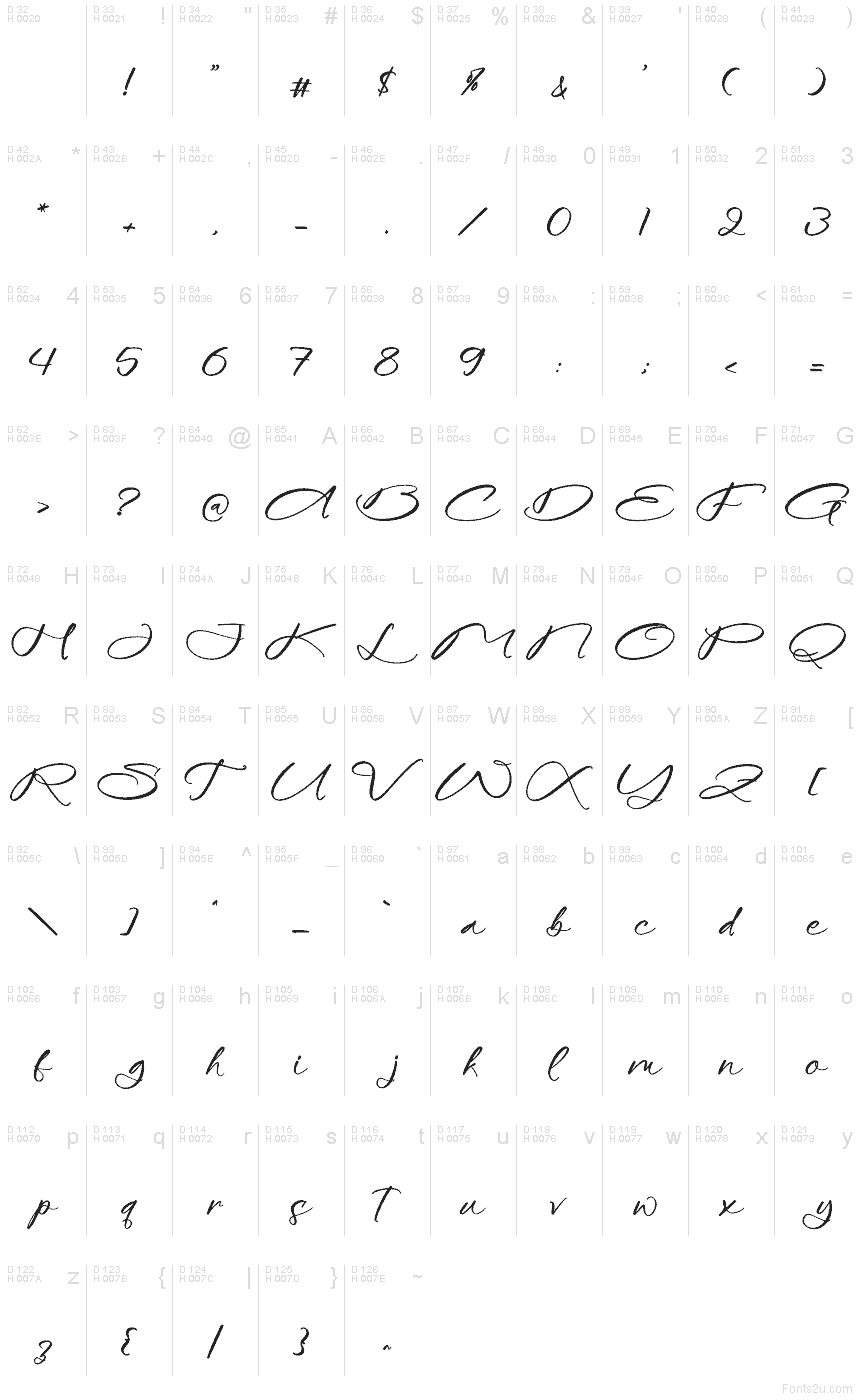
Twodinch Geliant
Twodinch Geliant font by Letterena Studios instantly turns any project into a charming one. This stylish handwritten free font is sophisticated with a handwritten feel and fluid movement to mimic cursive handwriting. Its unique personality comes from its smooth lines which communicate directly with the viewer sharing messages warmly.
Whether you want to personalize gift cards or invites, Twodinch Geliant will make it happen! Logos, branding projects, and packaging designs are other ideas where you can benefit from this typeface. Use it also for website headers, hotspots on apps, magazine covers, or artistic posters!